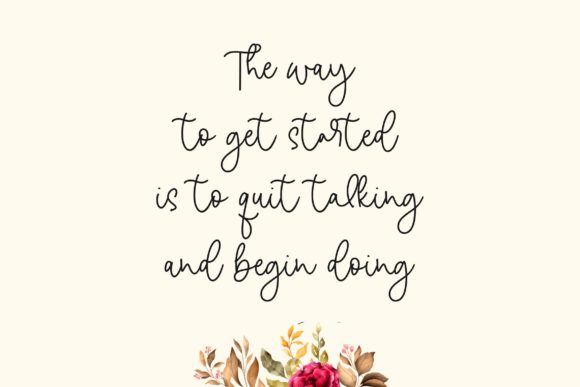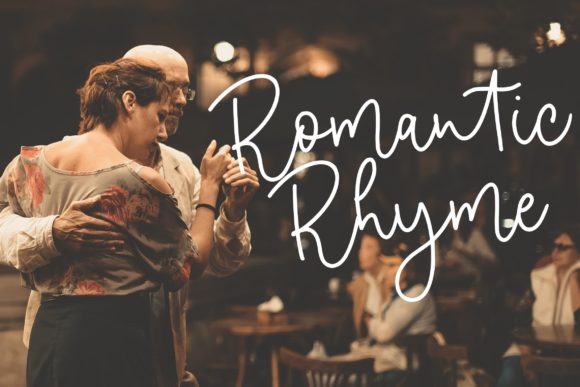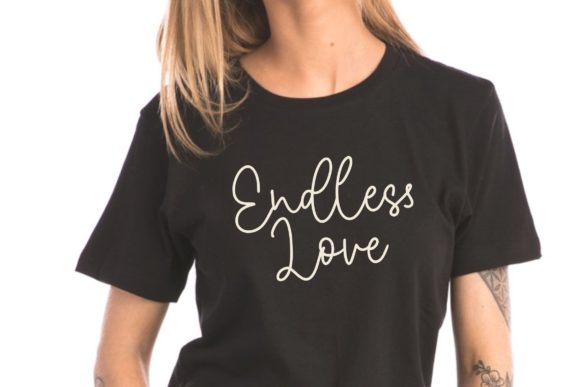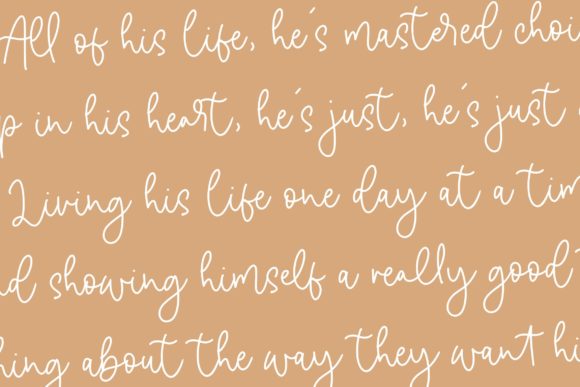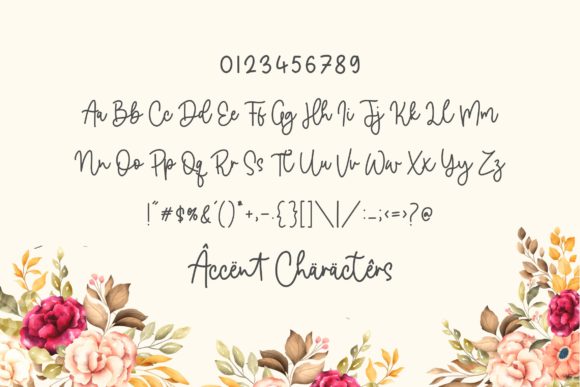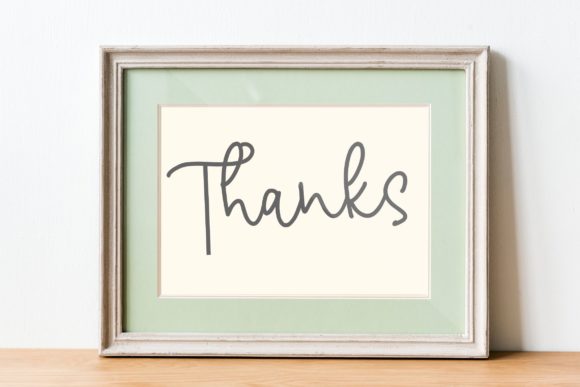
Dancing Candy Font: The Sweetest Addition to Your Design Collection
Are you a designer or crafter looking for a font that can add a touch of sweetness to your creative projects? Look no further than the Dancing Candy font! This beautiful, soft hand-lettered handwritten font is perfect for a variety of design needs, from Instagram posts to DIY projects. In this article, we’ll dive into the features and benefits of the Dancing Candy font, and explore how it can elevate your designs to the next level.
What is Dancing Candy Font?
Dancing Candy is a sweet, soft hand-lettered handwritten font that features gorgeous swashes and ligatures. These elegant flourishes make this script incredibly versatile, allowing you to use it for a wide range of design projects. Whether you’re creating social media graphics, crafting signs or cards, or designing logos or branding materials, Dancing Candy is the perfect choice.
Key Features of Dancing Candy Font
- Hand-lettered and handwritten: Dancing Candy has a personal, human touch that sets it apart from more traditional fonts.
- Gorgeous swashes and ligatures: The font features beautiful swashes and ligatures that add a touch of elegance to any design.
- Soft and sweet: The font has a soft, sweet aesthetic that’s perfect for designs that require a touch of whimsy.
- Versatile: Dancing Candy can be used for a wide range of design projects, from Instagram posts to DIY crafts.
Uses for Dancing Candy Font
So, what can you use the Dancing Candy font for? The possibilities are endless! Here are a few ideas to get you started:
- Instagram graphics: Add a touch of sweetness to your Instagram posts with Dancing Candy.
- DIY projects: Use Dancing Candy to create beautiful, handmade cards, signs, and other crafts.
- Calligraphy: Dancing Candy is perfect for calligraphy projects, from wedding signs to event invitations.
- Branding and logos: Use Dancing Candy to create a unique and memorable brand identity.
Why Choose Dancing Candy Font?
So, why should you choose Dancing Candy font for your design needs? Here are just a few reasons:
- Unique and eye-catching: Dancing Candy is a one-of-a-kind font that will make your designs stand out.
- High-quality: Dancing Candy is a high-quality font that’s designed to produce beautiful results.
Tips for Using Dancing Candy Font
Here are a few tips for getting the most out of Dancing Candy font:
- Experiment with swashes and ligatures: The swashes and ligatures in Dancing Candy are what make it truly special. Experiment with different combinations to find the look that works best for your design.
- Pair with other fonts: Dancing Candy pairs well with a variety of other fonts. Try pairing it with a bold sans-serif font for a striking contrast.
- Use for headlines and titles: Dancing Candy is perfect for headlines and titles, where its elegant swashes and ligatures can really shine.
In conclusion, Dancing Candy font is a sweet and versatile addition to any design collection. With its gorgeous swashes and ligatures, soft and sweet aesthetic, and ease of use, it’s the perfect choice for designers and crafters alike. Whether you’re creating Instagram graphics, DIY projects, or branding materials, Dancing Candy is sure to turn your creative ideas into true pieces of art.